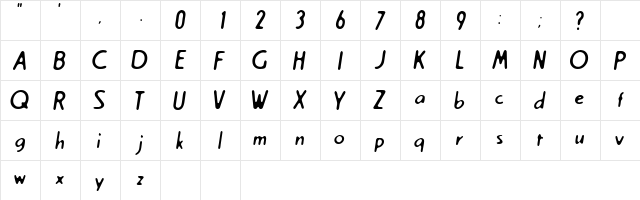
Cream Light
Design Context for Cream Typeface
Cream is a composed and adaptable typeface that performs quietly and consistently across a wide range of design contexts. Its slender proportions lend an understated elegance to any composition.